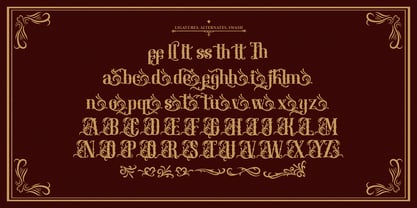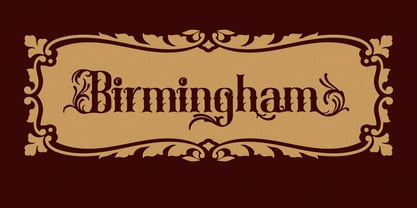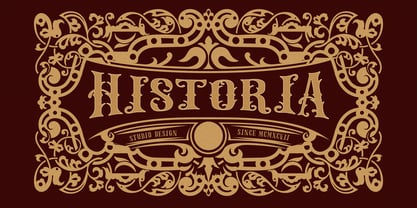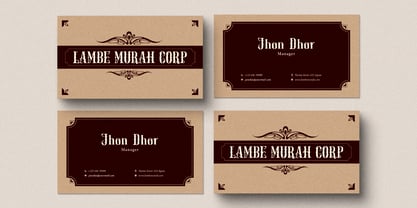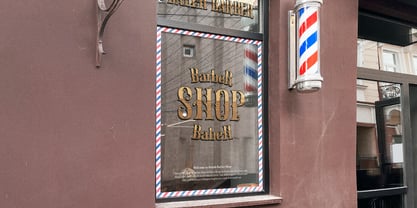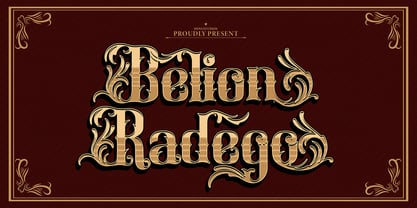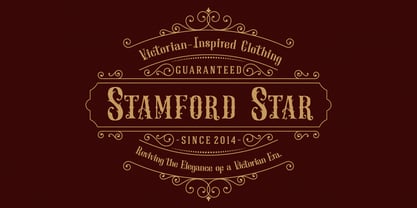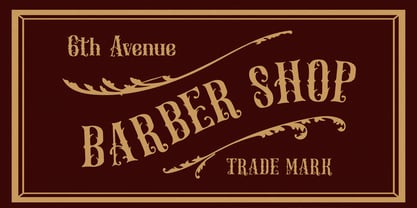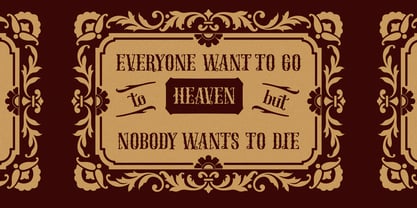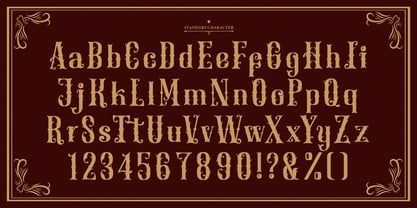
Belion Radego
by Denustudio
The Belion Radego Font Family was designed by Dede Nugraha and published by Denustudio. Belion Radego contains 2 styles and family package options.
Belion Radego | Victorian Typeface, from Denustudios, suitable for any projects such as: logos, branding projects, homeware designs, product packaging, mugs, quotes, posters, shopping bags, t-shirts, book covers, name card, invitation cards, greeting cards, label, photography, watermark, special events, and all your other lovely projects that need a Victorian Typeface taste.
• Regular and Italic
• Standard glyphs
• Alternate and Ligature
• Fonts include multilingual support